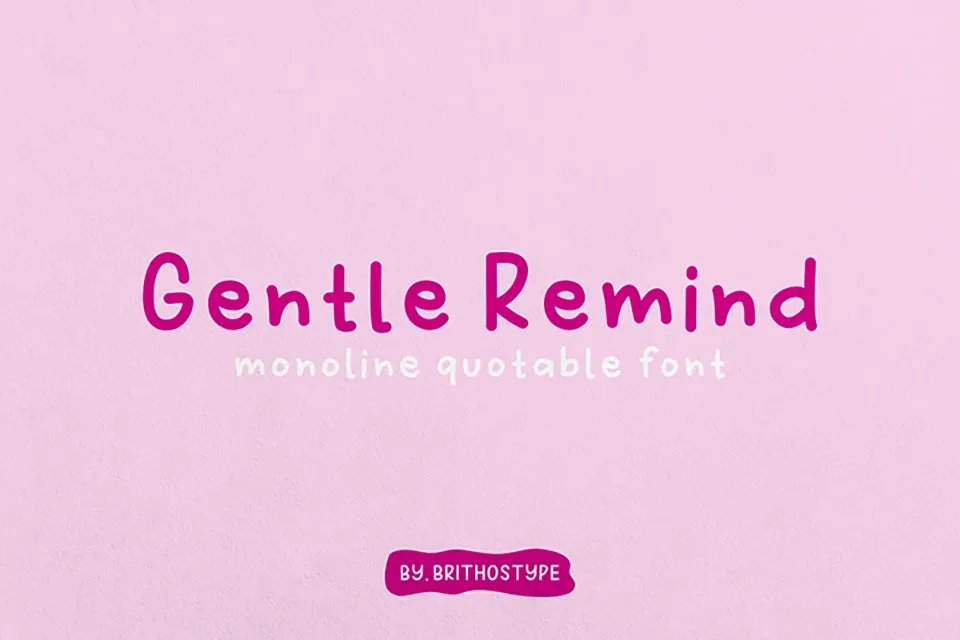
Gentle Remind Font
Gentle Remind Font embodies cuteness and authenticity. This dazzling and sweet handwritten font will turn any creative idea into a standout!